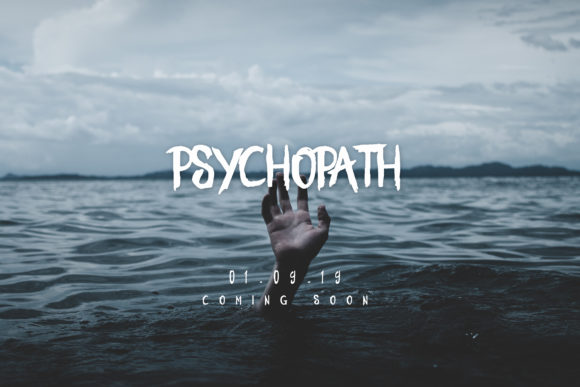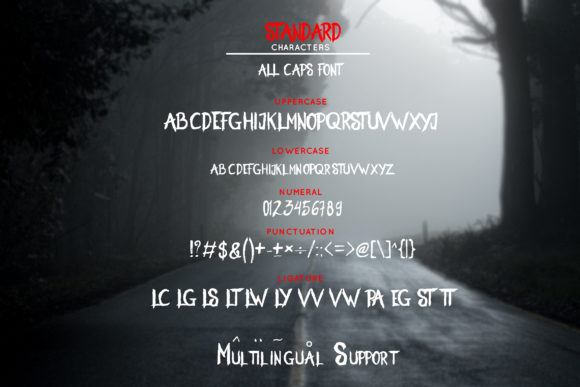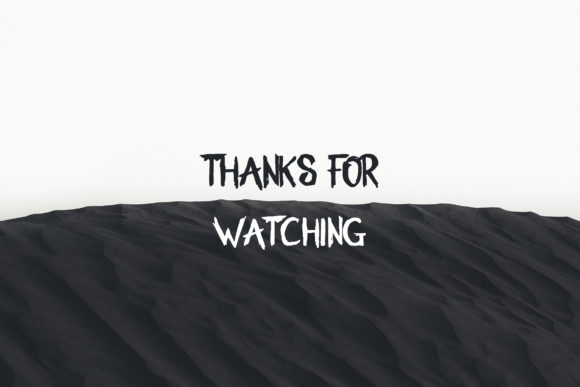
Introduction to Sinister Impale Font
As a designer, there’s nothing quite like the rush of creating a project that sends shivers down your spine. You’re brainstorming ideas for a horror-themed movie poster, and suddenly, the perfect font pops into your mind. That’s exactly what happened when I stumbled upon the Sinister Impale Font – a terrifyingly beautiful typeface that’s sure to elevate your creative project to the next level.
| 👤 Author | Megy Rahmat A. |
With its high-quality design and transparent background, the Sinister Impale Font is a valuable resource for designers looking to add a touch of eeriness to their work. Whether you’re creating a spooky movie title, a Halloween-themed design, or simply want to add some edge to your branding, this font is a must-have in your design arsenal. And the best part? It’s available for free download, making it an accessible and affordable addition to your creative toolkit.
Key Features of Sinister Impale Font
- High-quality design for a creative project: The Sinister Impale Font is designed to provide a unique and eerie aesthetic, perfect for horror-themed projects or those that require a dark and mysterious tone.
- Unique, hand-drawn design: The Sinister Impale Font features a unique, hand-drawn design that sets it apart from other fonts in its class.
Honest Review: Sinister Impale Font
As a designer, I’m always on the lookout for unique and high-quality design resources to elevate my creative projects. Recently, I stumbled upon the Sinister Impale Font, and I must say, it’s been a game-changer for me.
Here are some things that work well with this font: ✨
- High-quality design: The Sinister Impale Font is incredibly detailed and well-crafted, making it perfect for a variety of creative projects.
However, there are some limitations to consider: ⚠️
- Limited character set: The font only includes a limited character set, which may not be suitable for complex text-based projects.
- Not ideal for body text: Due to its unique design, the Sinister Impale Font may not be the best choice for body text, but it’s perfect for headlines and titles.
Overall, I’m thoroughly impressed with the Sinister Impale Font. Its unique design and high-quality execution make it a valuable addition to my design resources. If you’re looking for a font to add some edge to your creative project, I highly recommend giving it a try.